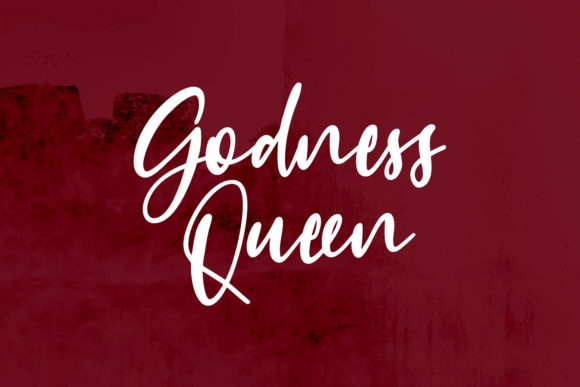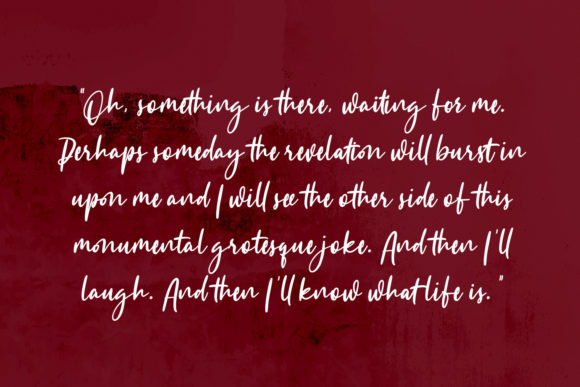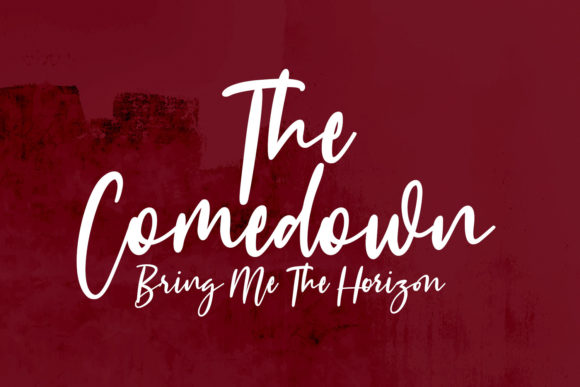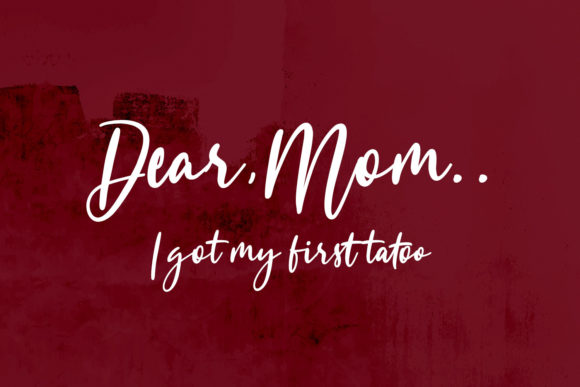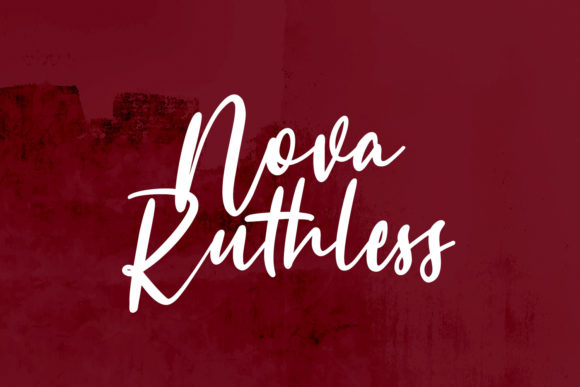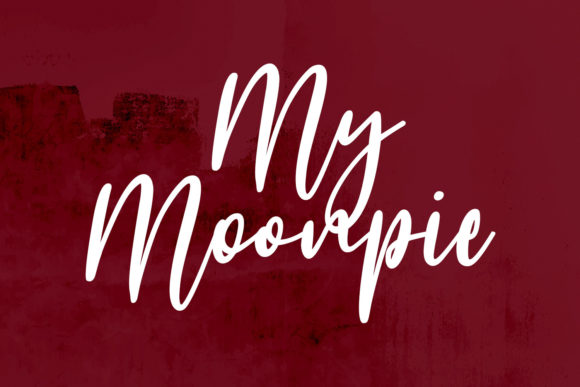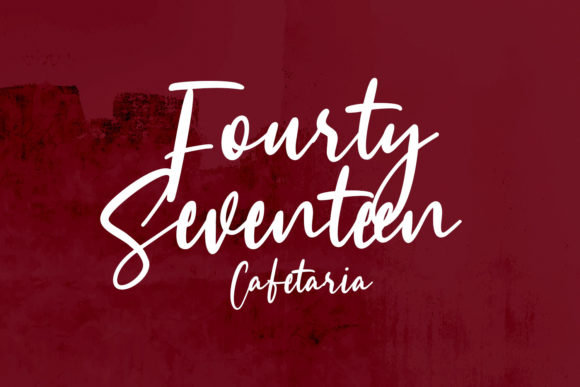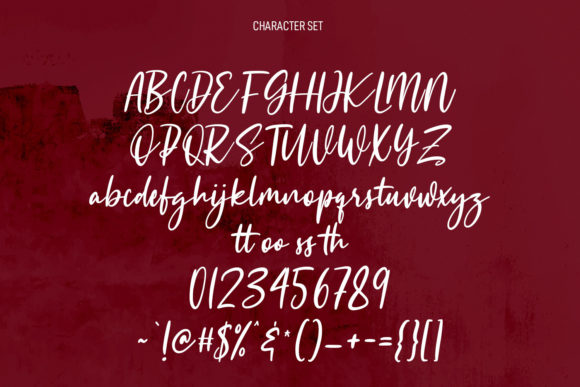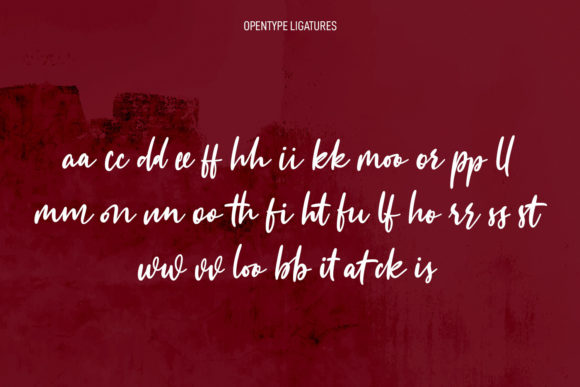
Batopika Script Font
About Batopika Script Font
Batopika Script is a casual handwritten script font. Whatever the topic, this font will be a wonderful asset to your font library, as it has the potential to enhance any creation.